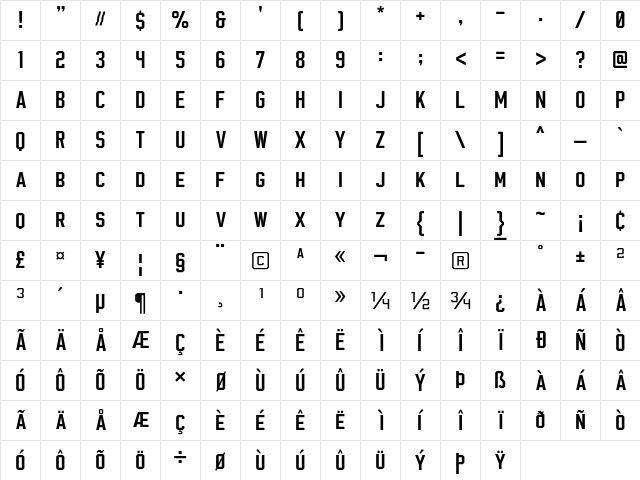
Ron Regular
| Foundry | Sons of Baidlowi |
| Designer | Muhammad Jauhar Azmi |
Design Context for Ron Typeface
Ron is a composed and adaptable typeface that performs quietly and consistently across a wide range of design contexts.